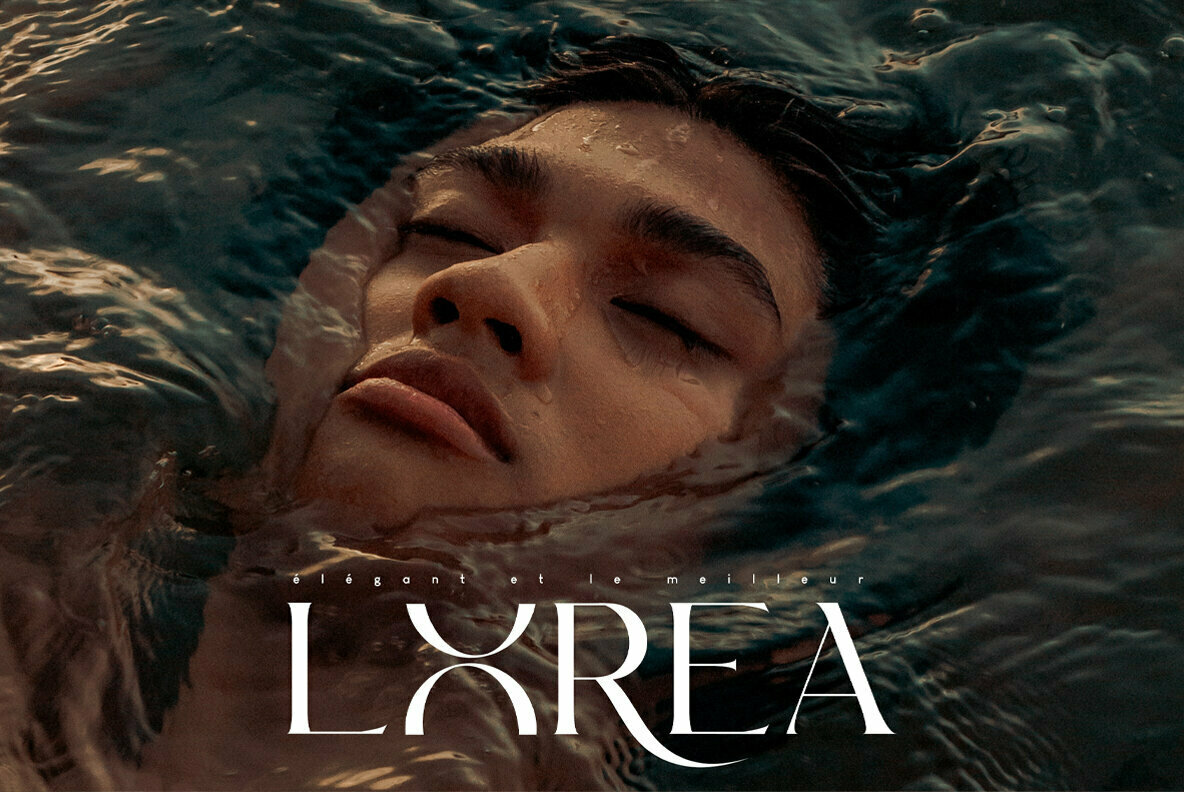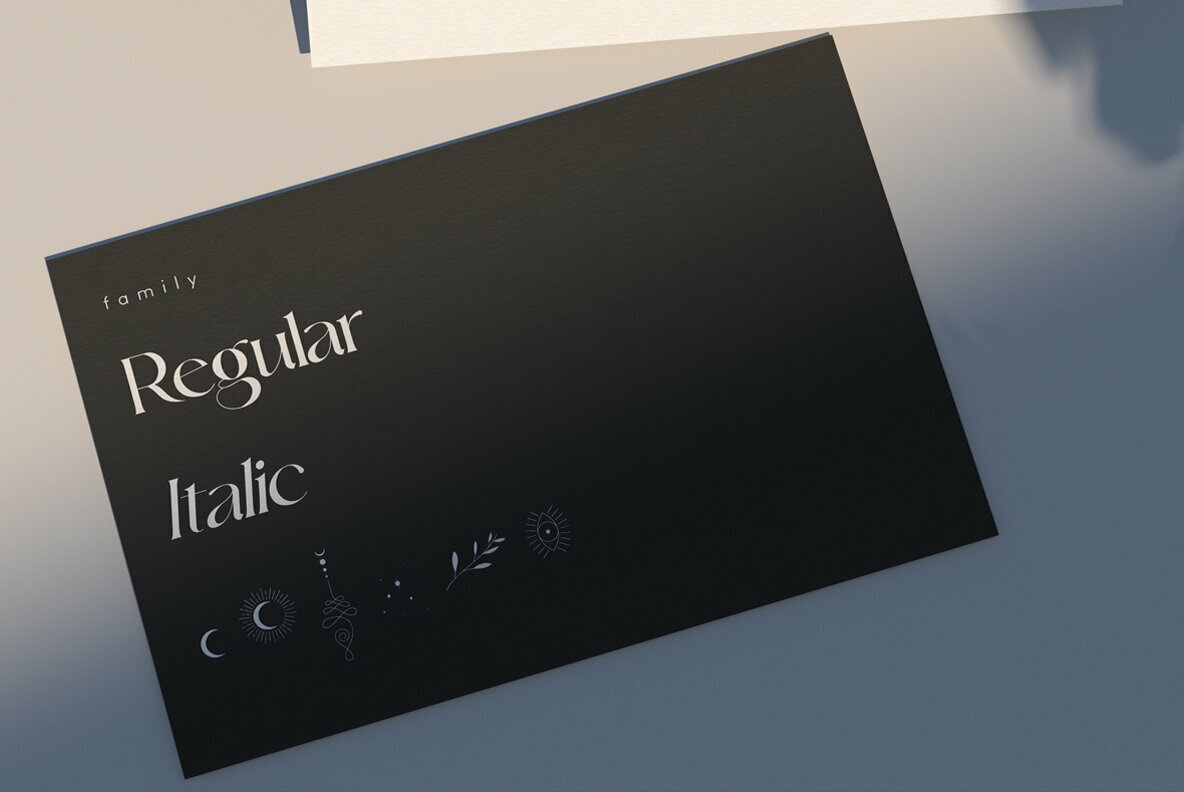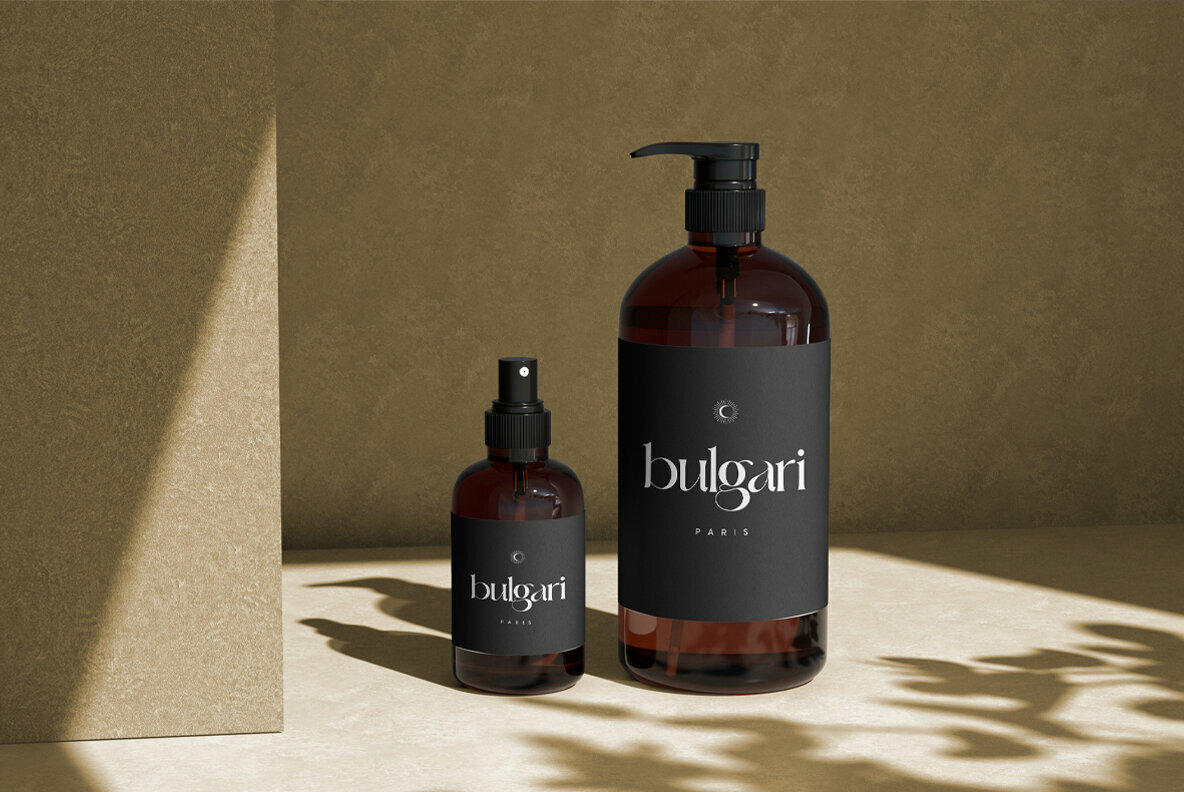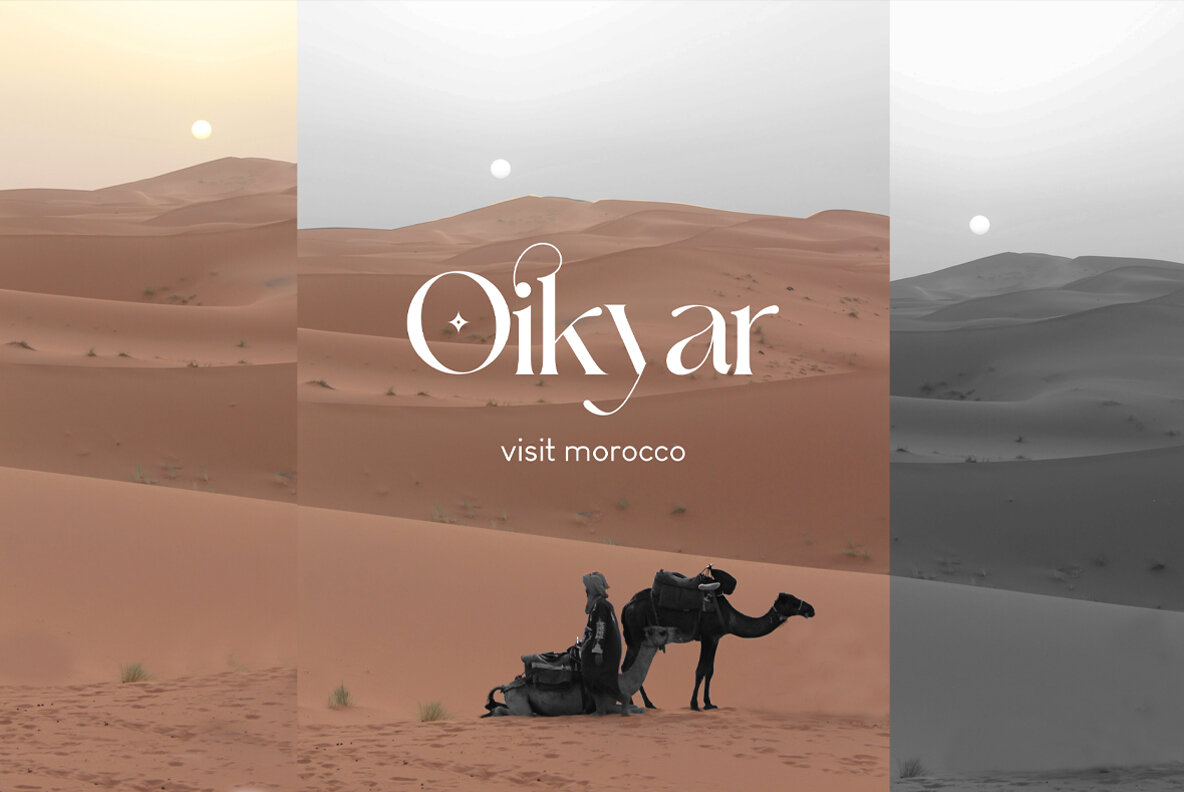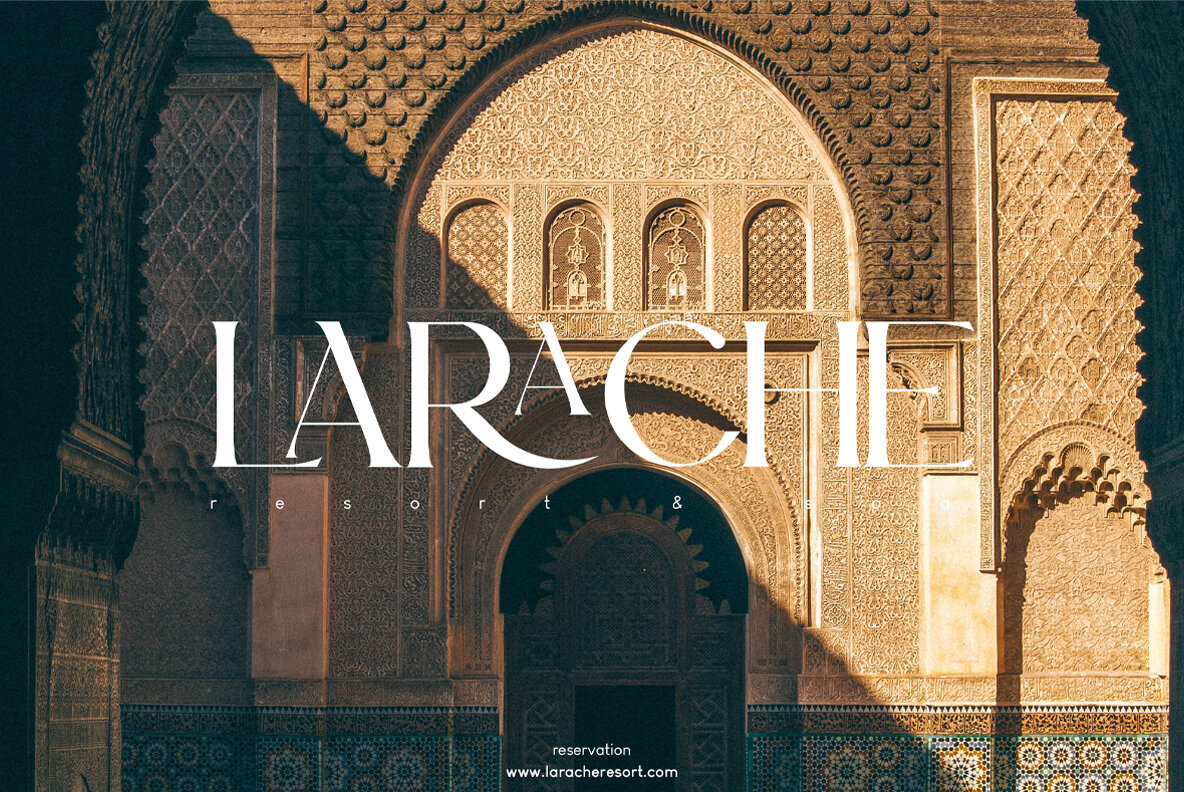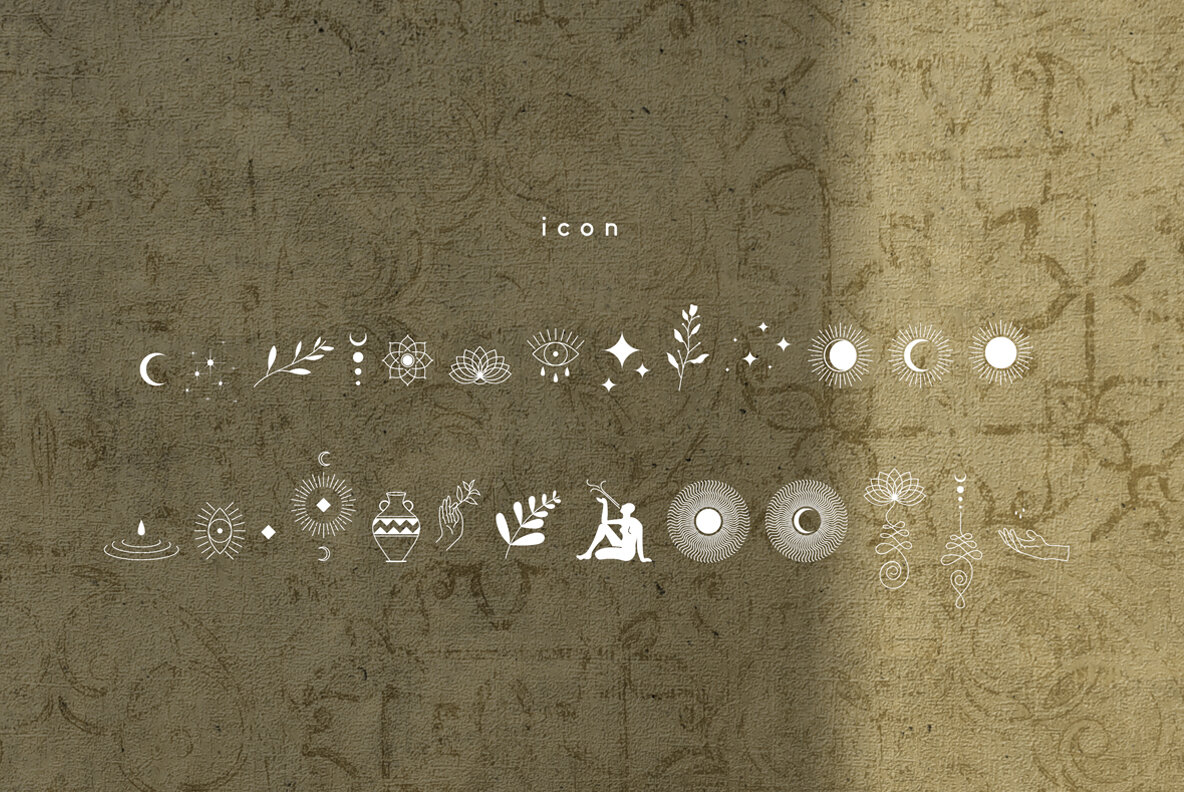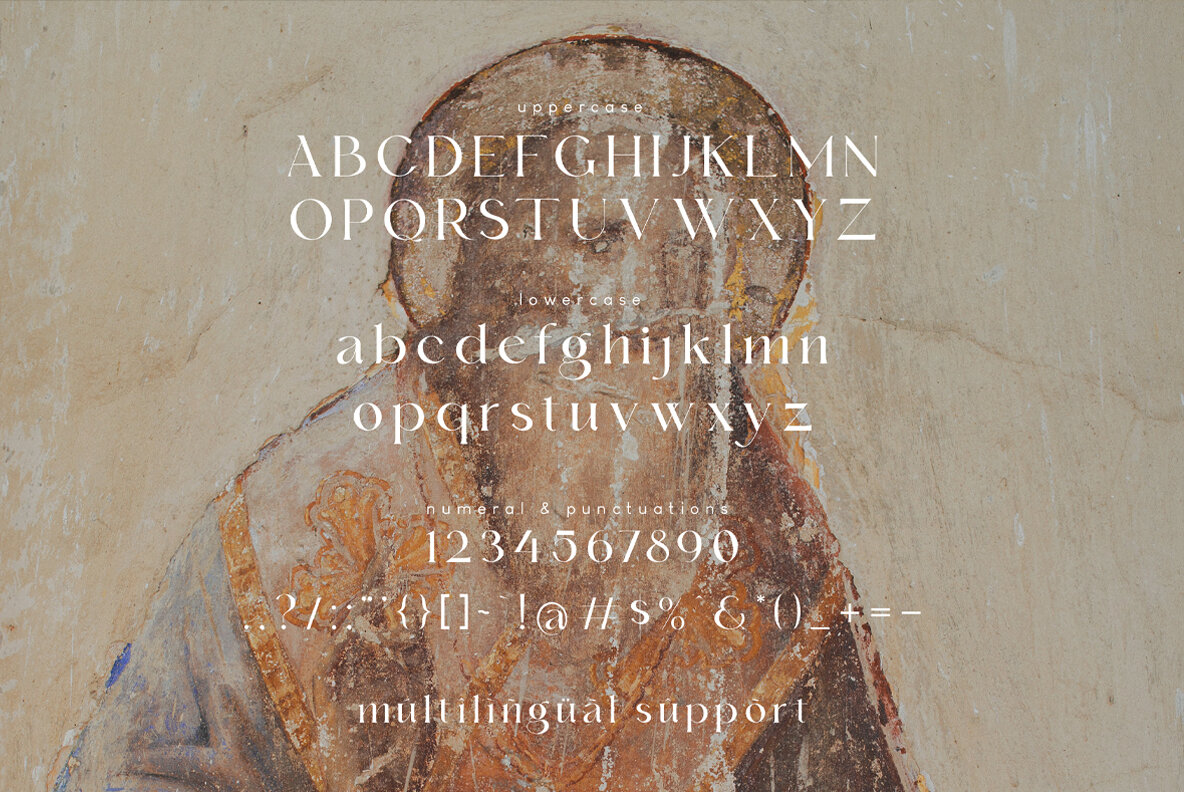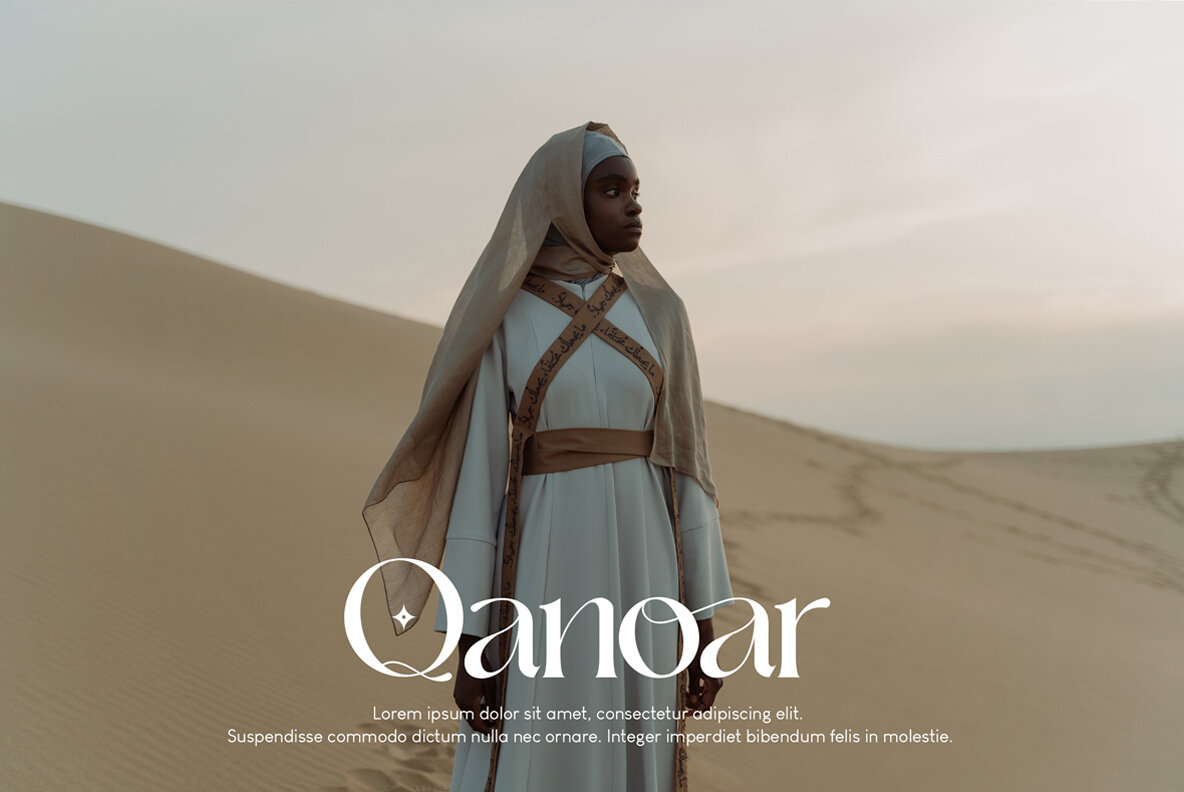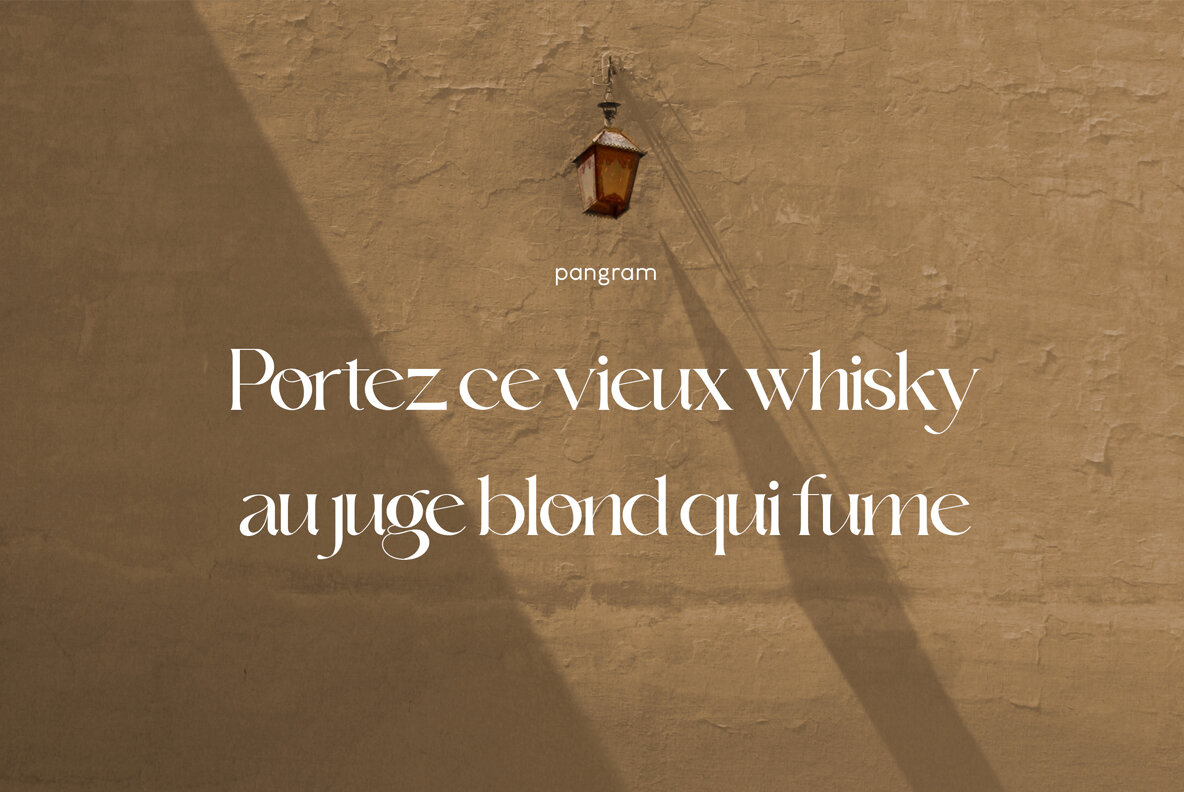
Eu Alonira Font
Eu Alonira Regular
Eu Alonira Italic
Eu Alonira Icon
Eu Alonira is a beautiful and elegant serif font that can be used for any type of branding. It's perfect to create logos, advertise products or services on social media posts with its stylish appearance which will make you stand out from the crowd!